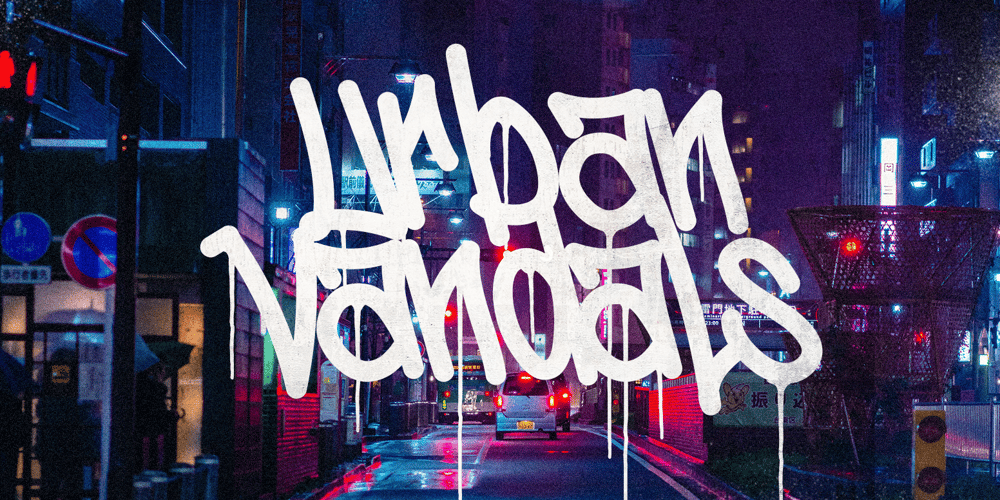
City Terror Vol2 Font Family was designed by Cipto Bagus Prakarso and published by Tomatstudio. City Terror Vol2 contains 1 styles and family package options. This is the volume 2 of City Terror Fonts, the difference is this one use chisel rounded tip so it will be good result if you use it for old school style tagging, or old style pieces. But otherwise you can use it in any styles and any need, specially about street art and hip hop.I hope you guys like it, cheersDon’t forget to like and rate the files, thank you! ๐